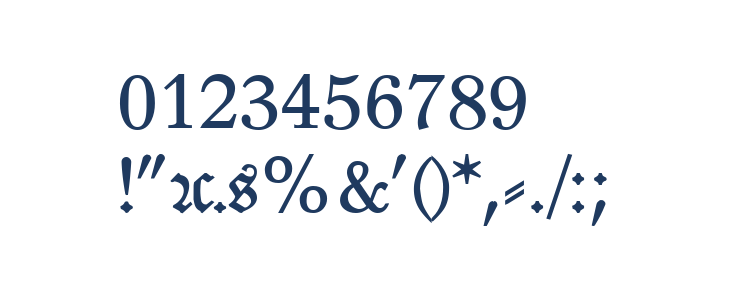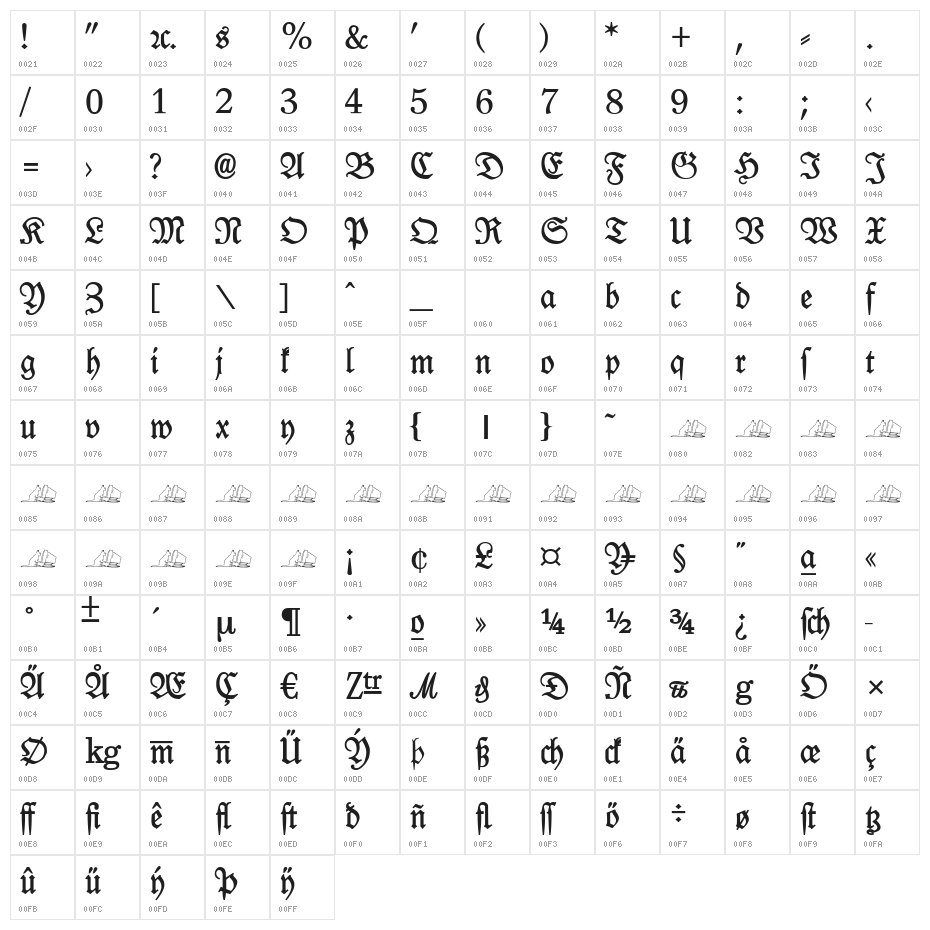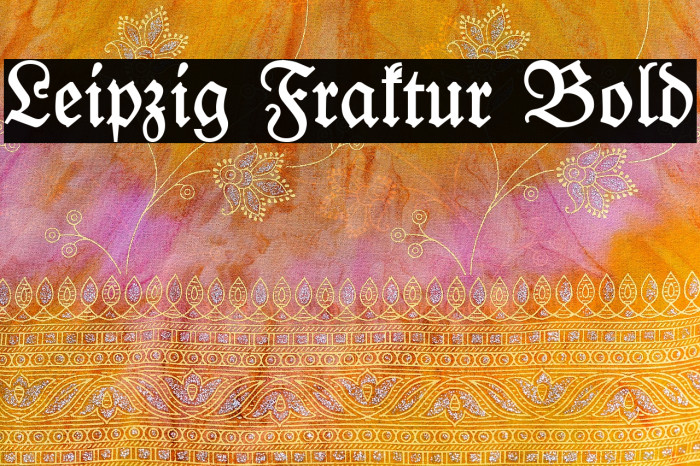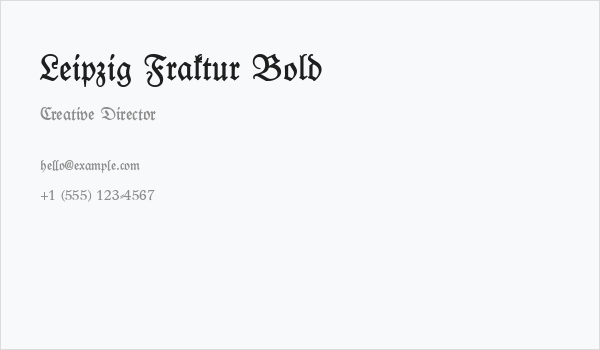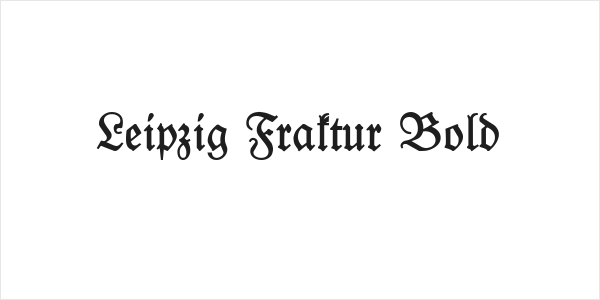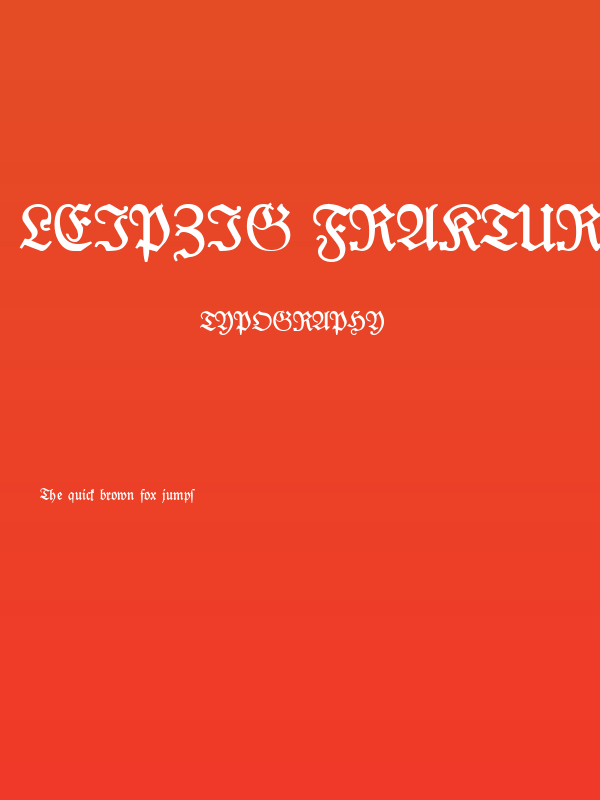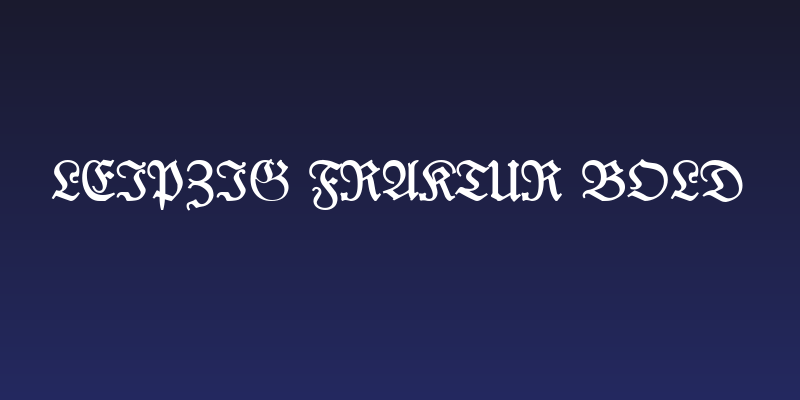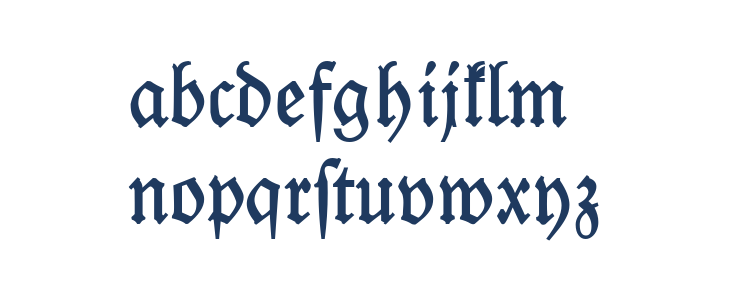
Leipzig Fraktur Bold Font
Leipzig Fraktur Bold Description
This font exhibits a traditional Blackletter style, characterized by its intricate and ornate letterforms. The uppercase letters are bold and dramatic, with sharp angles and elaborate curves that give a sense of historical elegance. The lowercase letters maintain this ornate style, with distinctive flourishes and a consistent weight throughout. The numerals are equally bold, featuring a classic design that complements the overall aesthetic. Special characters are designed with the same attention to detail, ensuring a cohesive look across all glyphs. This font's boldness and historical flair make it a striking choice for projects that require a touch of vintage sophistication.